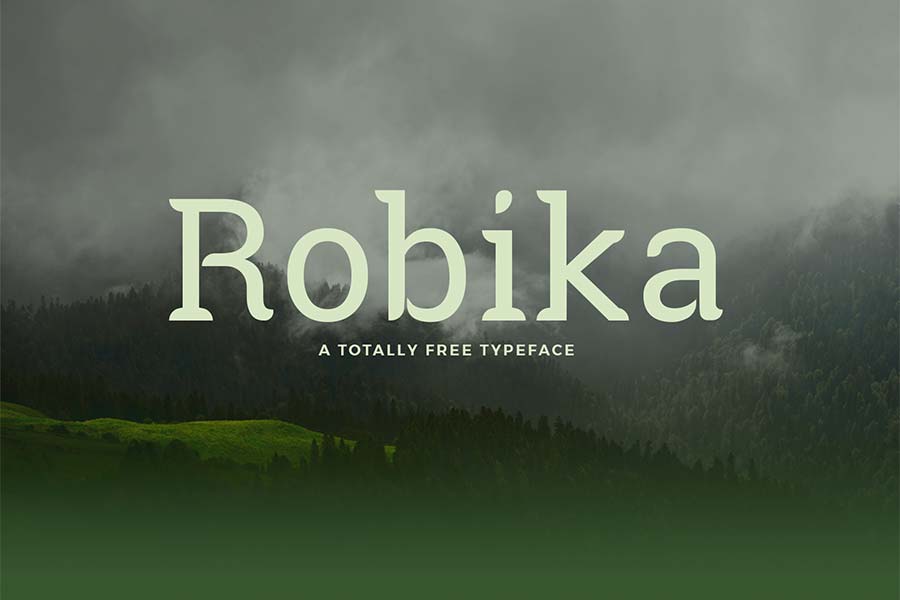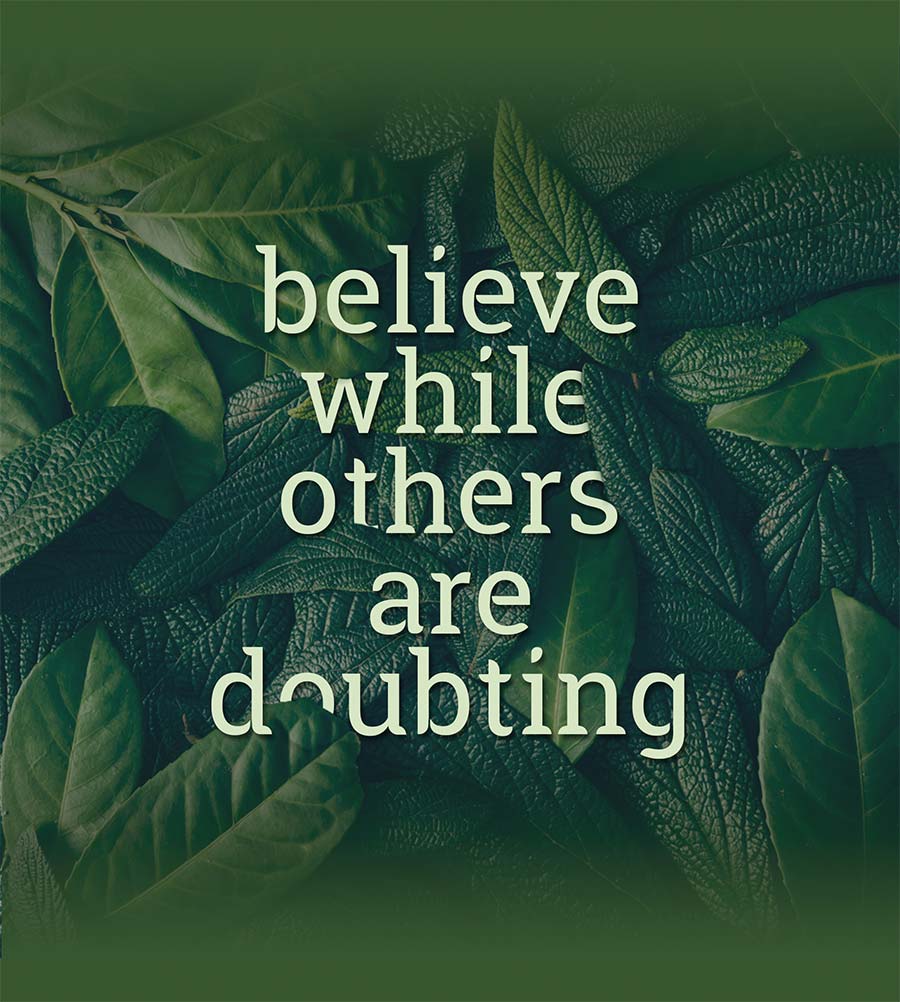
Robika is a gorgeous serif typeface with designer finished. It was originally created for a logo project then rejected, however the designer revived the project and made it a free font face. I like the way some of the strokes are carved in a way it creates a sense of shadow and depth.
This font will look good on headline titles, pull quotes, logotypes and more. Plus, you can use this font for both personal and commercial works.